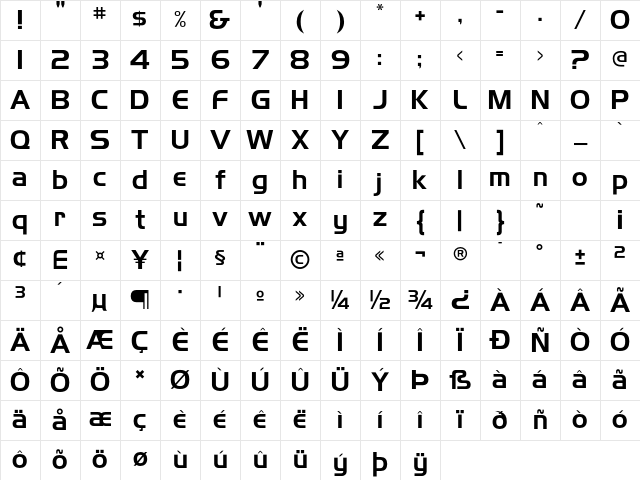
HighlandGothicFLF takes a clean, functional approach - its unadorned letterforms prioritise legibility and work reliably across screen and print environments.
Font Pairing: Works well alongside a characterful serif or display font that can carry the expressive load while HighlandGothicFLF handles the functional copy.
Pro Tip: Use HighlandGothicFLF for UI labels, navigation, and short-form body copy where clean legibility is the priority.